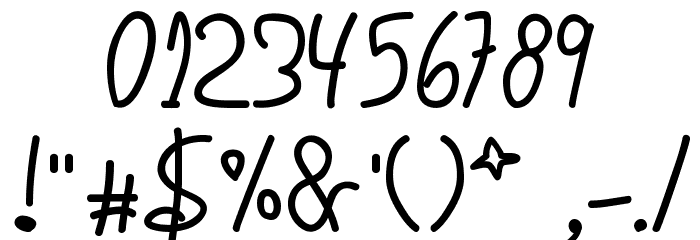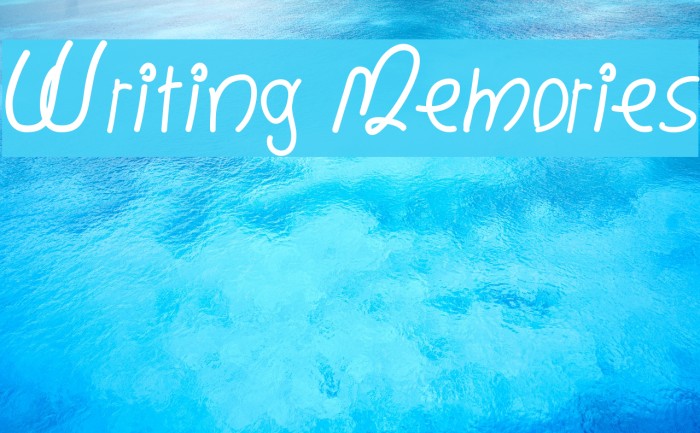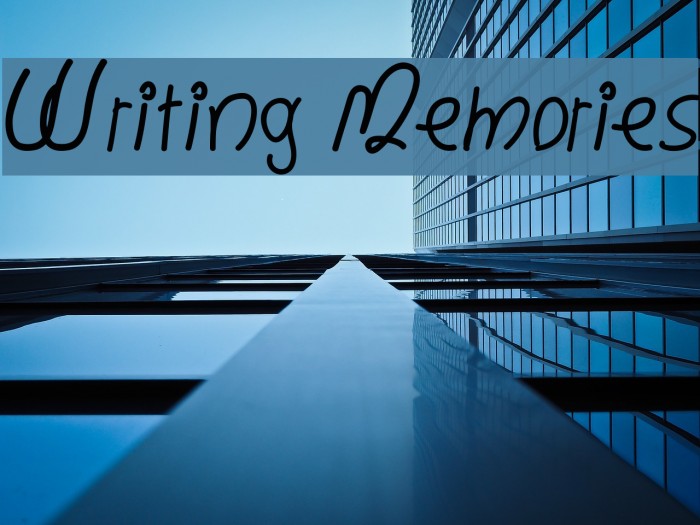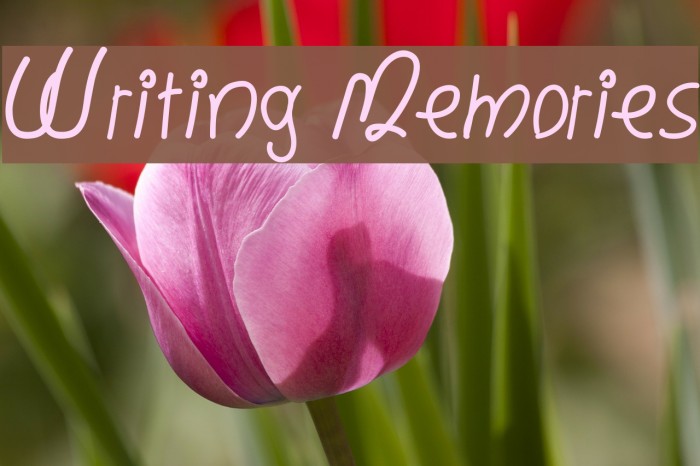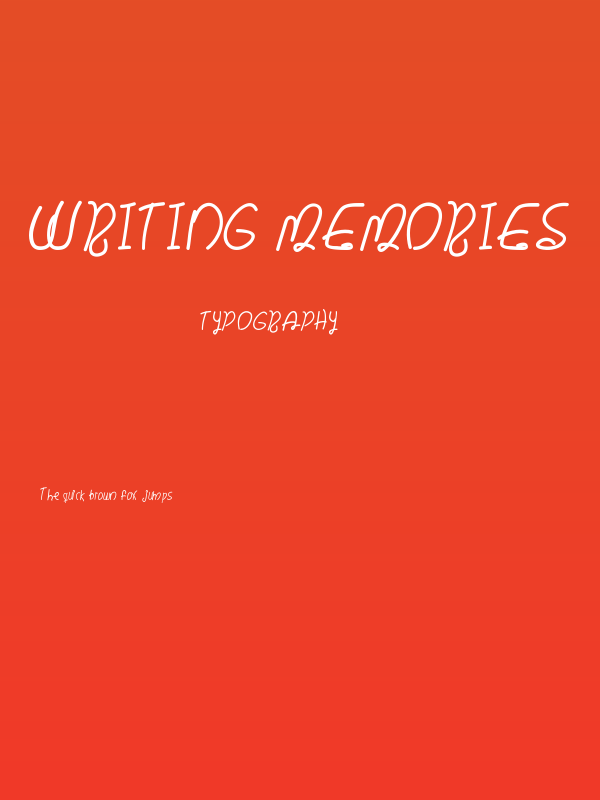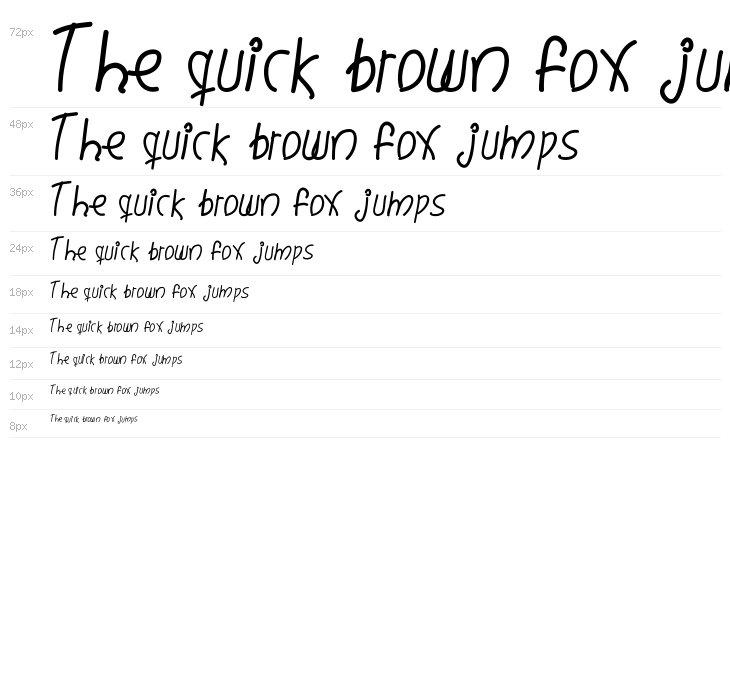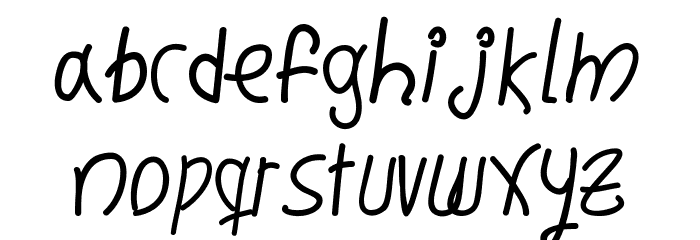
Writing Memories Font
Writing Memories Description
This playful and whimsical font features a handwritten style with smooth, flowing curves and a casual appearance. The letters are slightly slanted, giving a sense of movement and dynamism. Uppercase and lowercase letters maintain a consistent style, with rounded edges and a friendly, approachable feel. The numerals and special characters are designed to match the overall aesthetic, ensuring a cohesive look across all text. This font is perfect for projects that require a personal touch, such as invitations, greeting cards, or creative branding materials.
| Use Case | Headlines, Logos, Personal projects |
| Proposed Projects | Ideal for invitations, greeting cards, personal branding, and creative projects. |